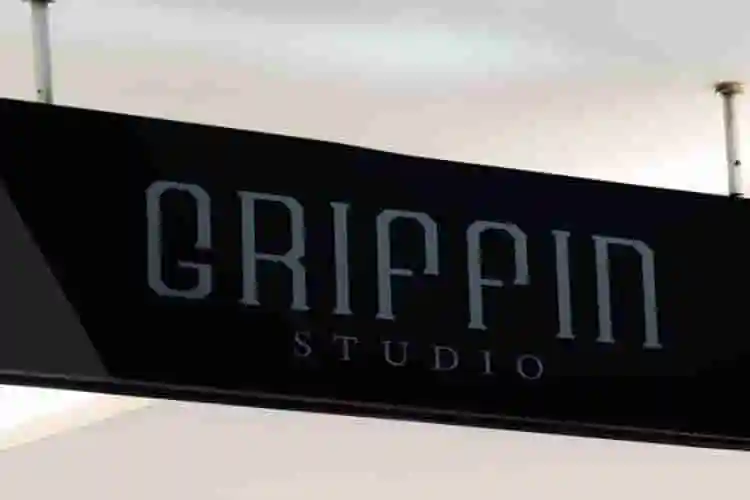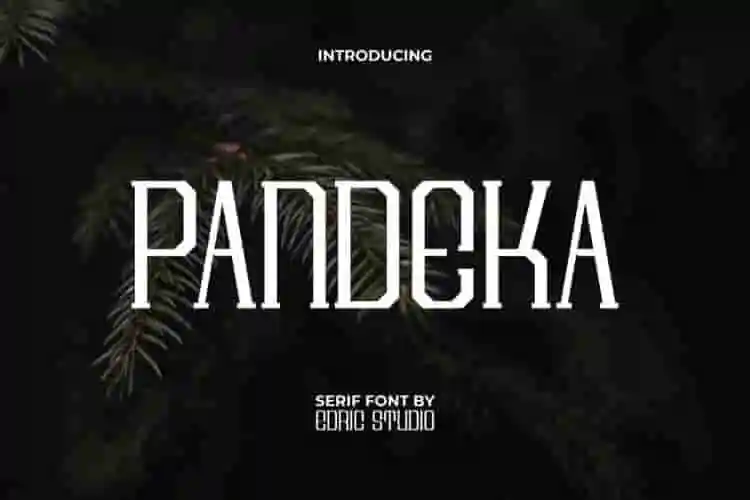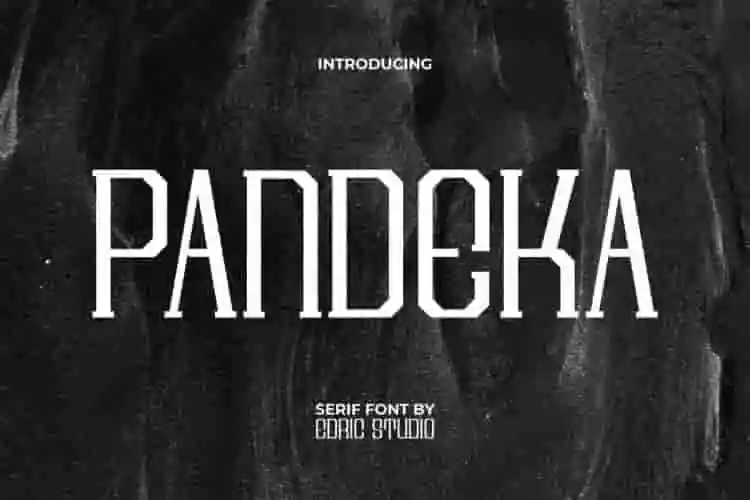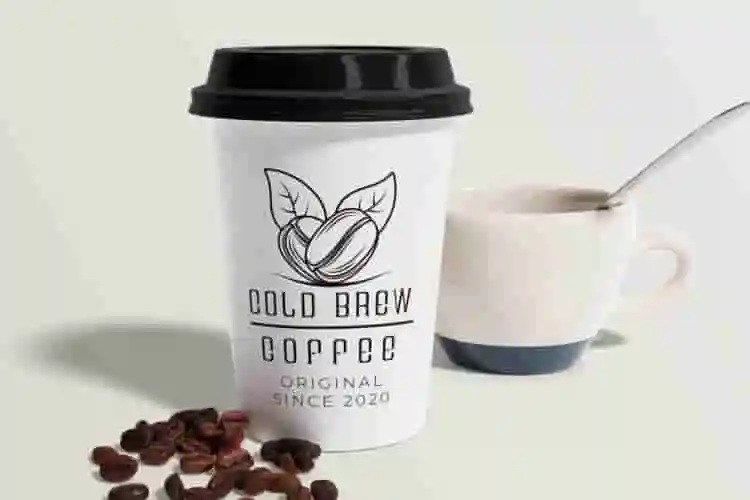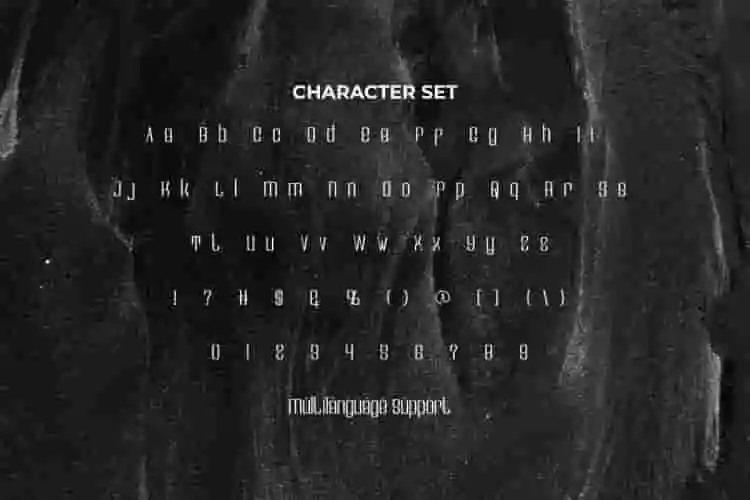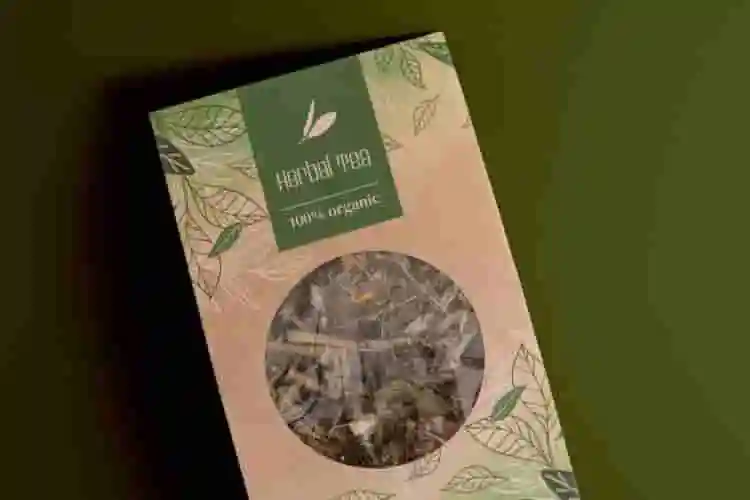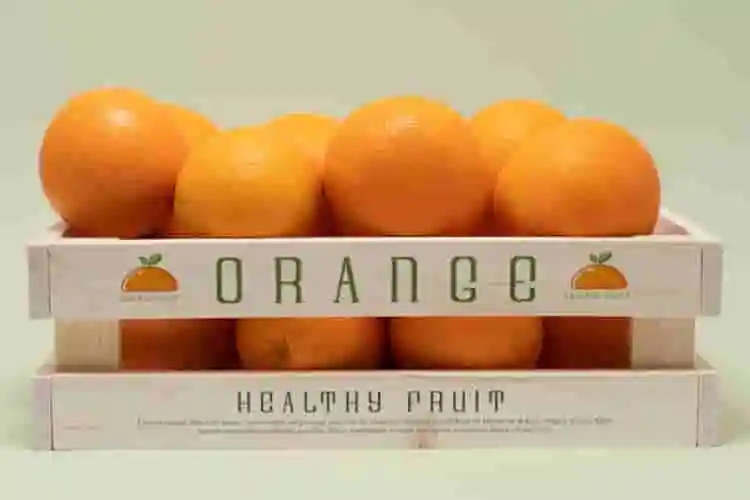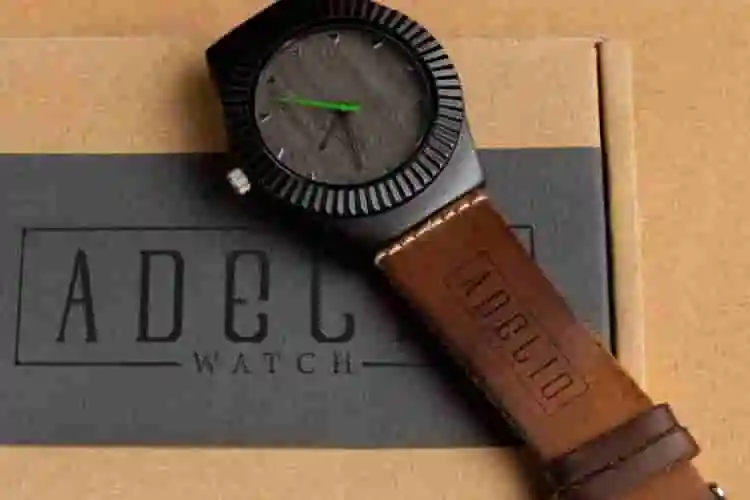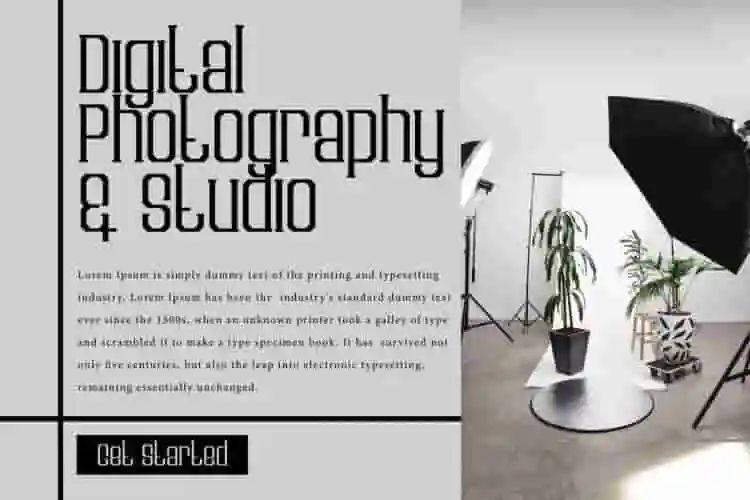
Pandeka Square Serif Display Font
Pandeka Font is a retro serif display font with a unique look. This font bring the idea of being like an ‘old school’ typeface which has an appeal to the sporty square shape of the letter, which makes it cool on all industries such as, accessories, architect, café, fashion designer, fitness center, furniture, herbal products, interior design, movie, photography, printing, publishing, sportswear, etc.
Pandeka Font comes with a full set of Uppercase and Lowercase Basic Characters, Number, large range of Punctuation and Symbol. It has a stunning characters set, perfectly managed with well spaced and kerning. Pandeka Font will be able to complement for any project (with extended license) including: brand logo, business card, catalog, header, invitation, label, leather emboss, magazine, packaging design, price tag, signage, stationery, website, and anything that requires a dashing classy look.
Introducing Pandeka, a sharp and modern square serif display font built to make a strong visual impact. With its geometric structure, bold serifs, and square detailing, Pandeka brings a contemporary twist to traditional serif styles—perfect for designers who want classic authority with modern edge.
Whether you’re working on branding, editorial layouts, poster titles, logos, or product packaging, Pandeka adds a clean, structured elegance to your work.
Introducing Pandeka, a square serif display font designed for those who crave bold elegance. With geometric shapes, sharp edges, and a strong typographic presence, Pandeka brings together the timeless feel of serifs and the modern punch of square structure.
• Square Serif Style
• High Contrast Letterforms